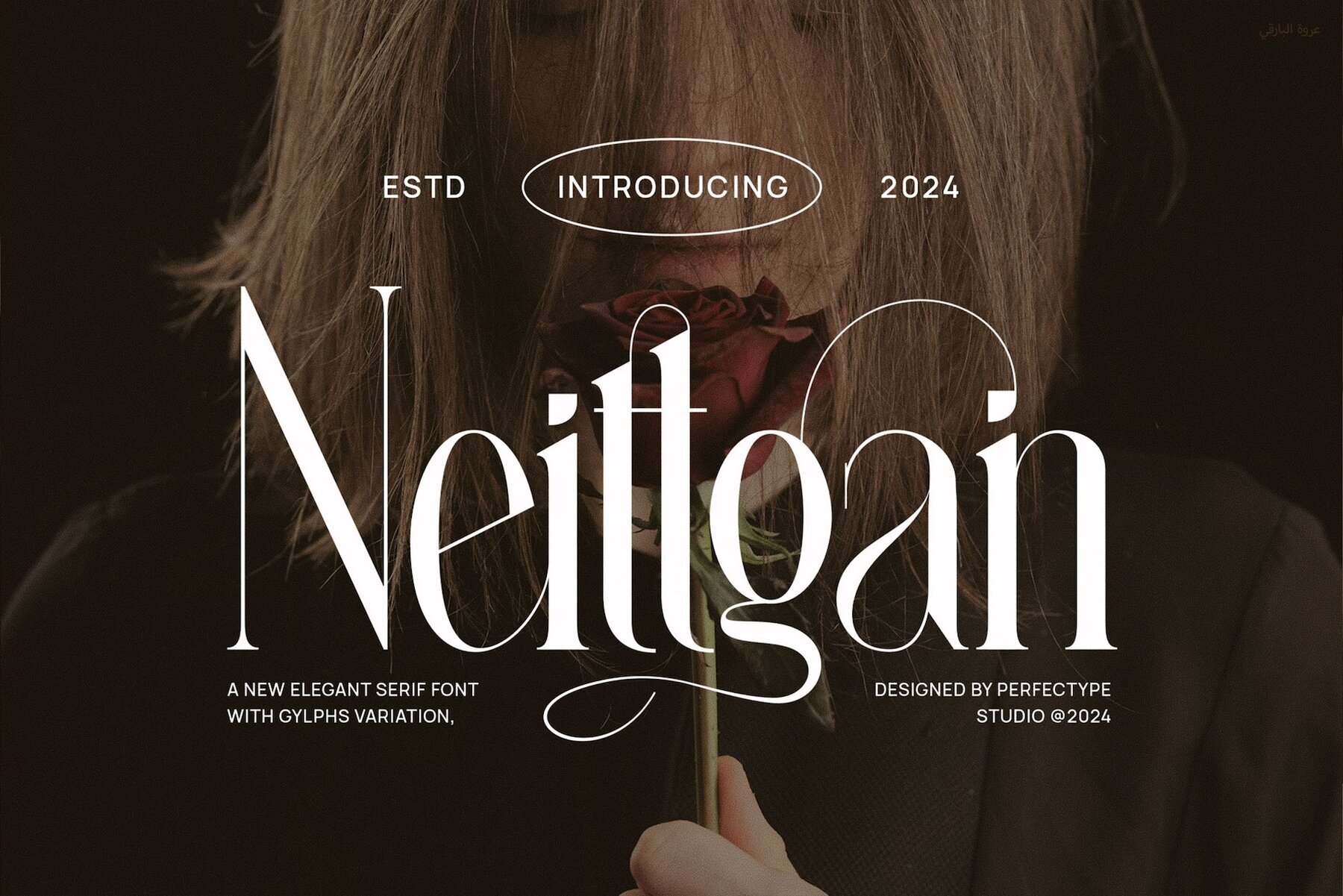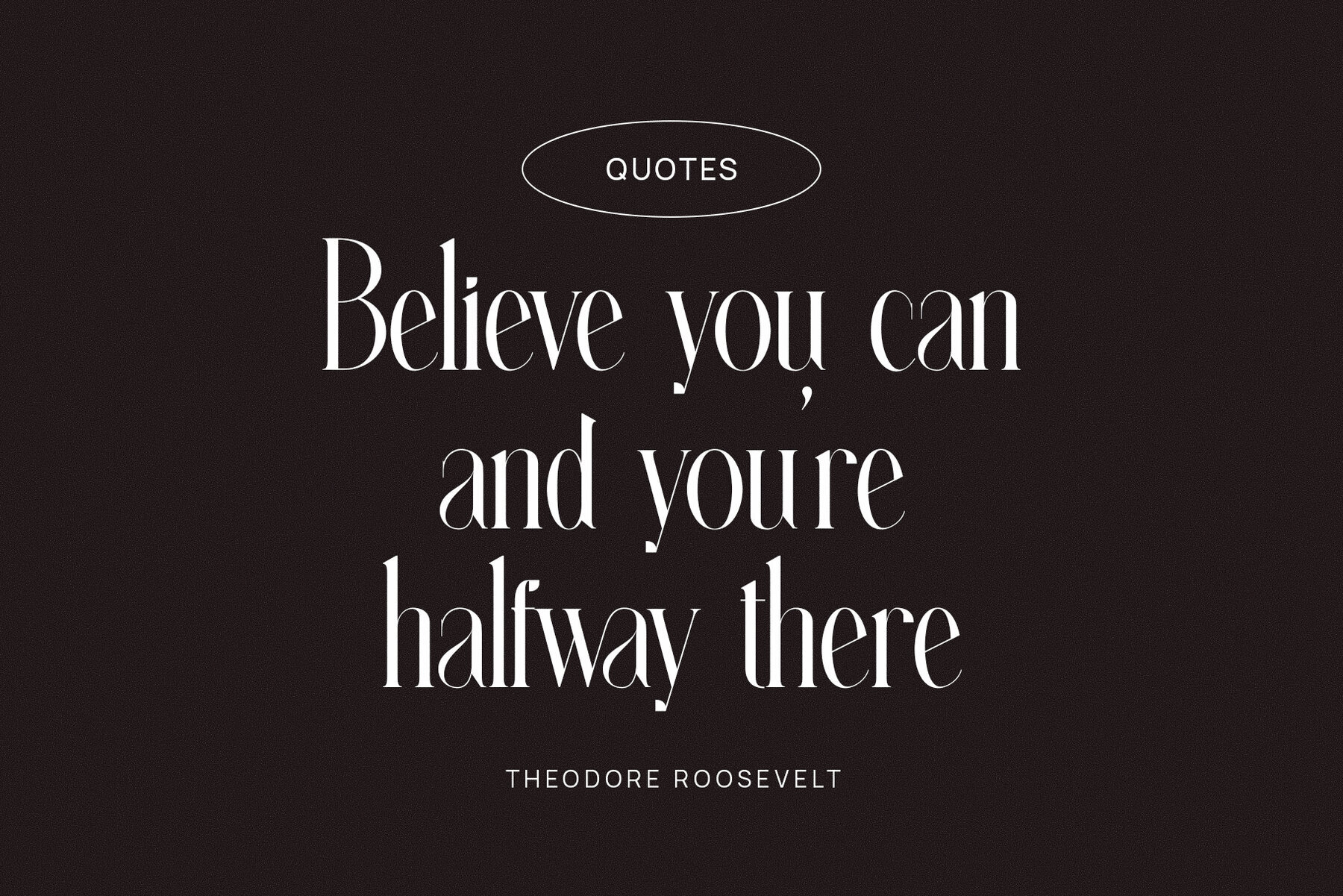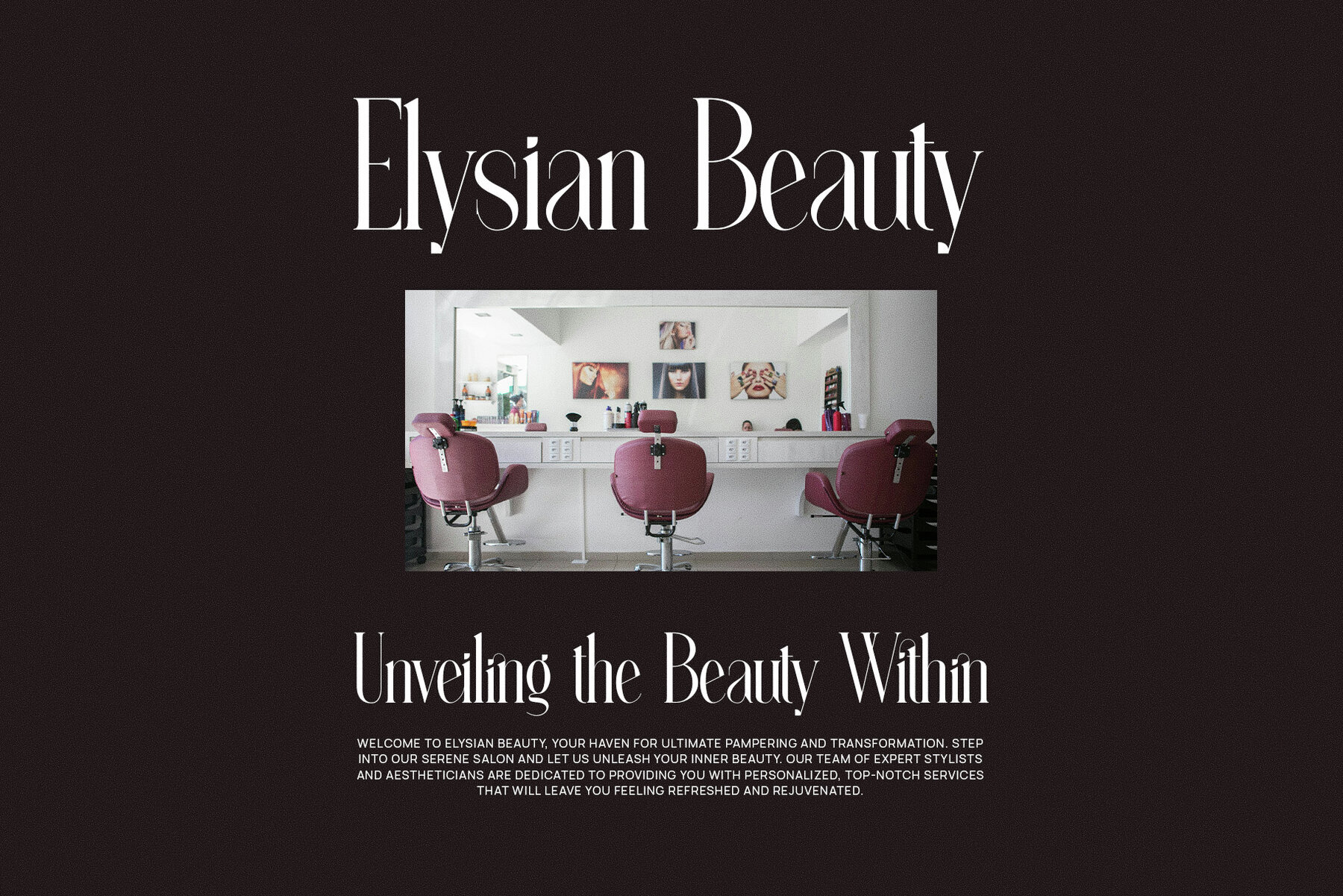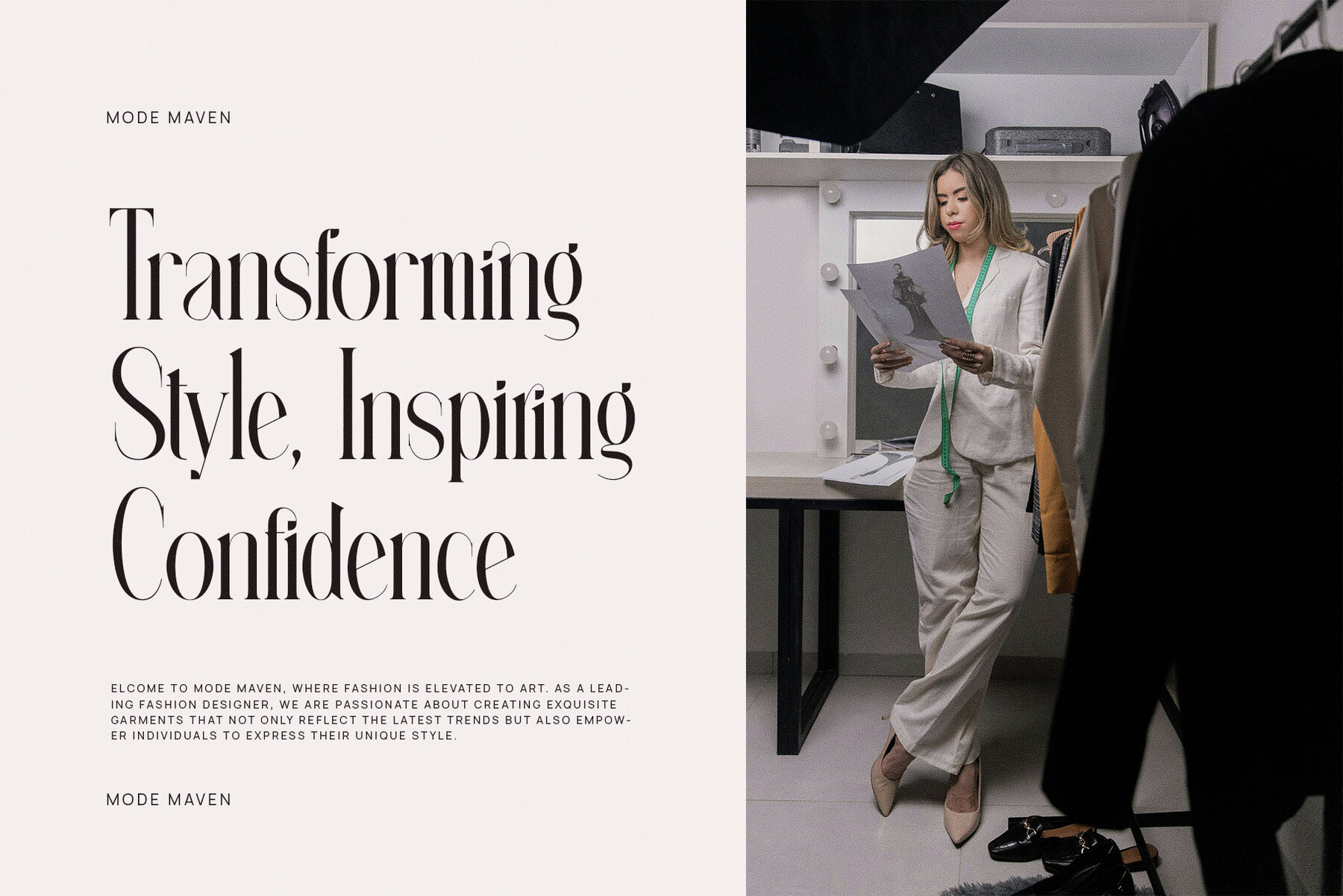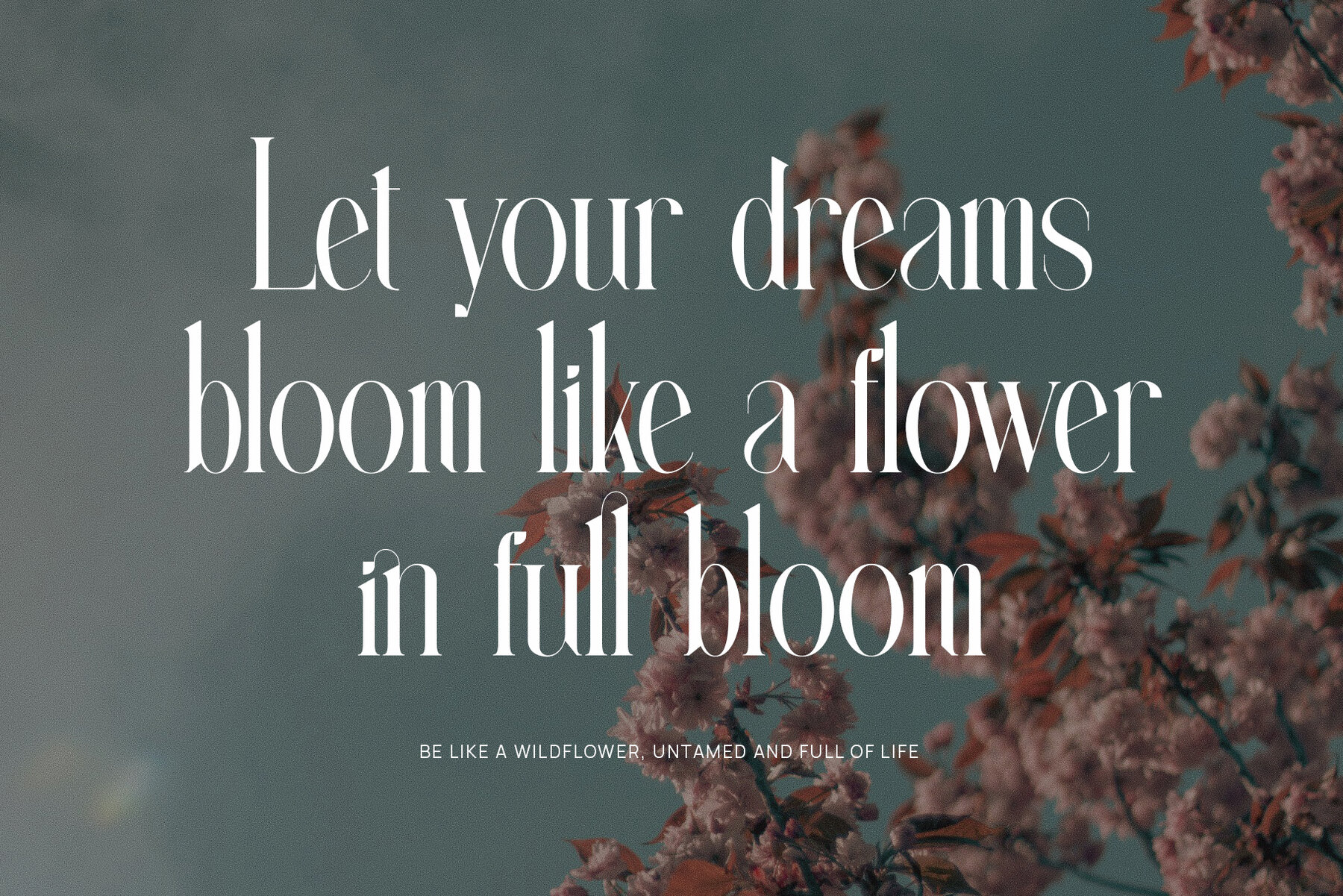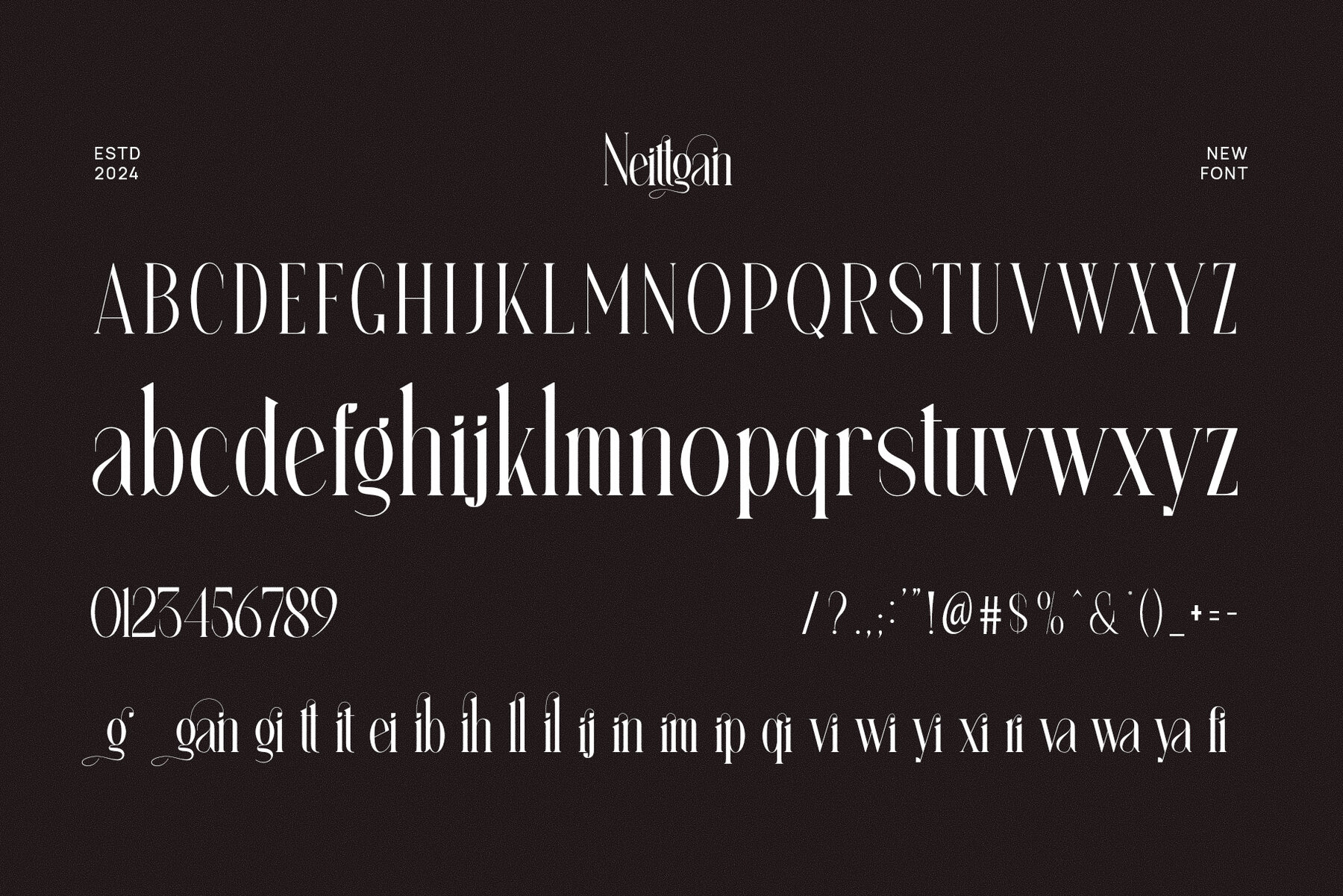
Introducing Neittgan Elegant Serif Font, a refined and modern serif typeface that combines timeless sophistication with contemporary style. Neittgan’s beautifully crafted letterforms feature unique serifs and a distinct, flowing design, making it an exceptional choice for high-end branding, luxury logos, and elegant editorial projects. Its elegant structure and distinctive shapes ensure that it stands out while maintaining readability and grace. Neittgan is not only visually appealing but also highly versatile, offering an array of ligatures and alternate characters. These thoughtful features provide designers with the freedom to create customized typography that flows seamlessly, adding an extra layer of refinement to any project. Whether you’re designing a standout logo, a sophisticated website, or an eye-catching magazine layout, Neittgan elevates your designs with its modern elegance and polished details. Perfect for industries that demand a blend of luxury and professionalism, Neittgan is an ideal choice for branding, upscale boutiques, food packaging, premium product advertisements, and more. Its versatility shines in both print and digital formats, ensuring that your designs make a lasting impact across various platforms. From advertisements to product labels and websites, Neittgan brings a touch of class and distinction to every application. With its unique shapes, beautiful ligatures, and versatile character set, Neittgan Elegant Serif Font is the perfect tool for any project that requires a balance of elegance, style, and modern flair. Let Neittgan be the font that adds timeless appeal to your creative work.